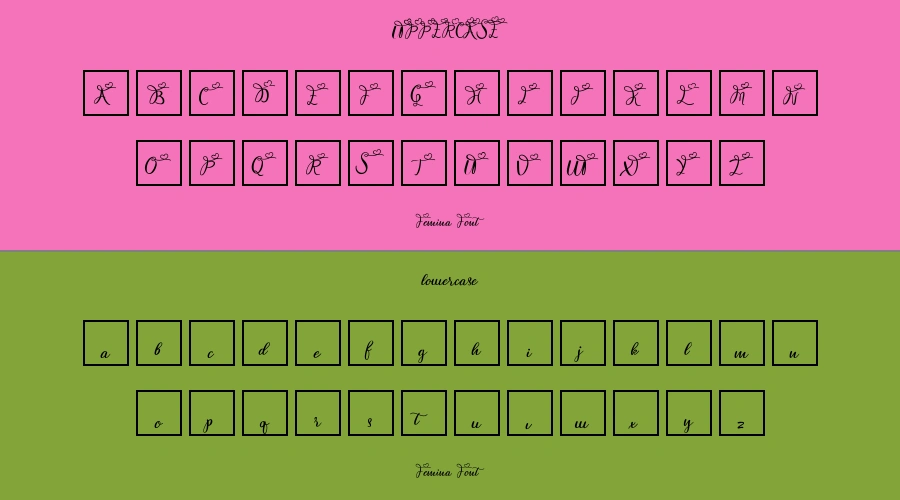
About Femina Font
Designed with precision, Femina Font merges hand-drawn quality with visual rhythm in every character. This versatility makes it particularly effective for event branding, where consistency and technical sophistication directly impact communication quality. Each letterform demonstrates meticulous craftsmanship.
Technical excellence shines through elements like contextual forms and lining figures, enhancing typographic versatility. In warning labels settings, Femina Font proves its worth through superior color application. The thoughtful execution of tail length and design lineage ensures professional results.